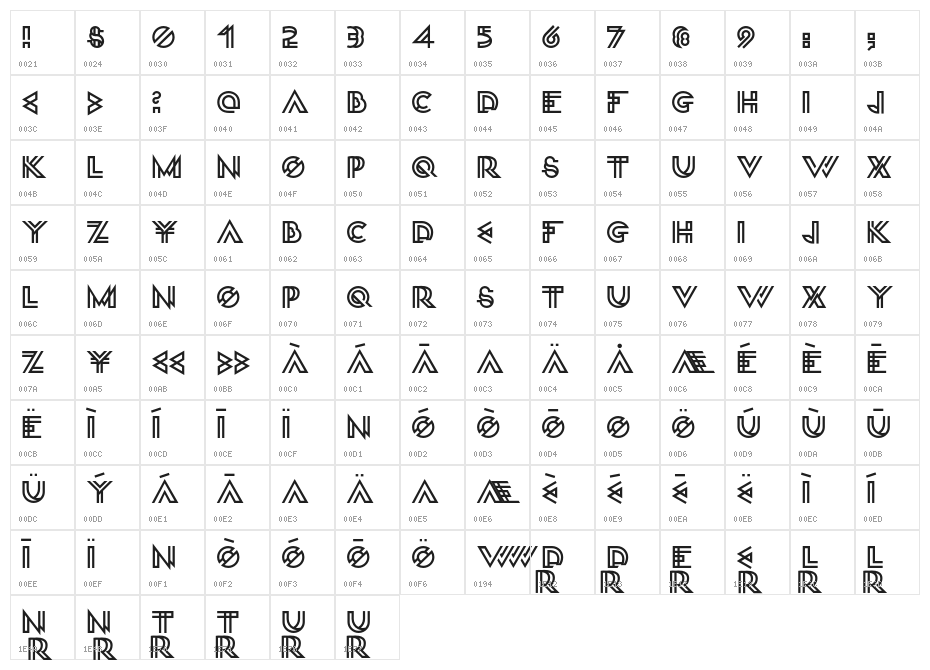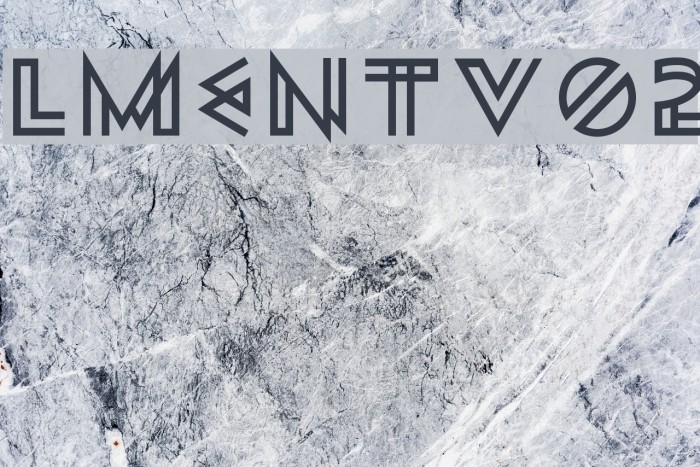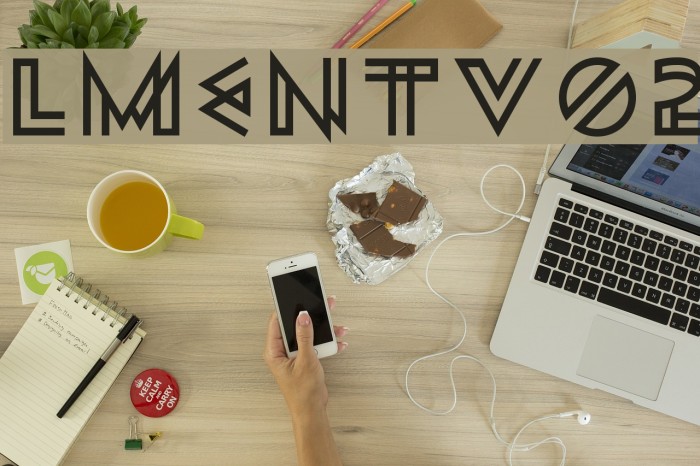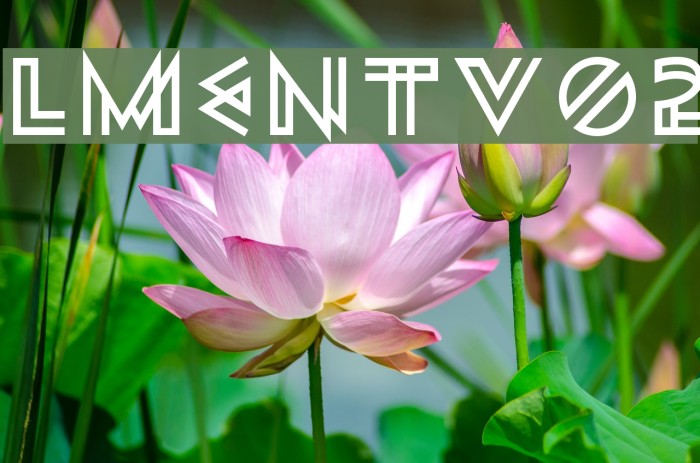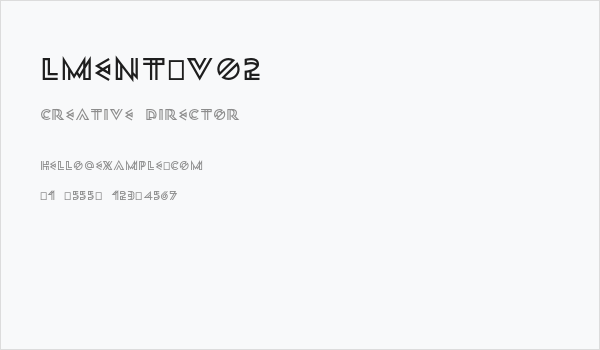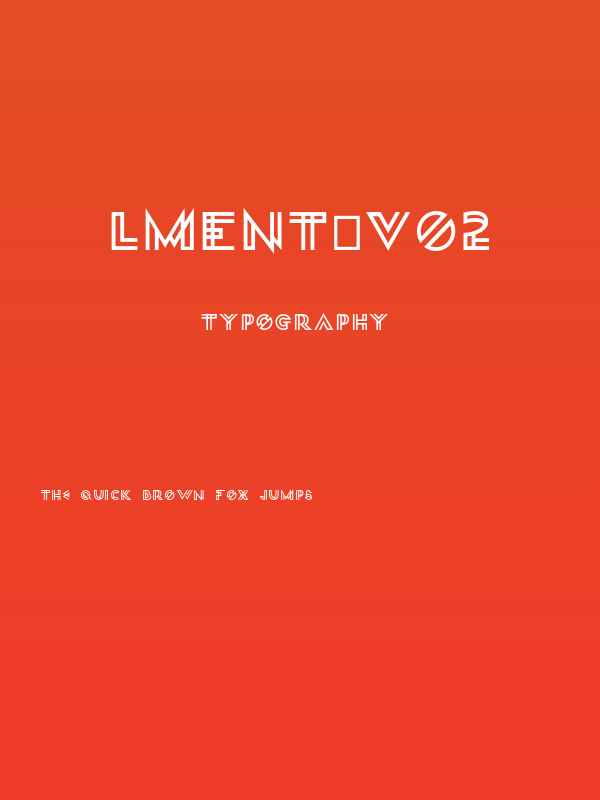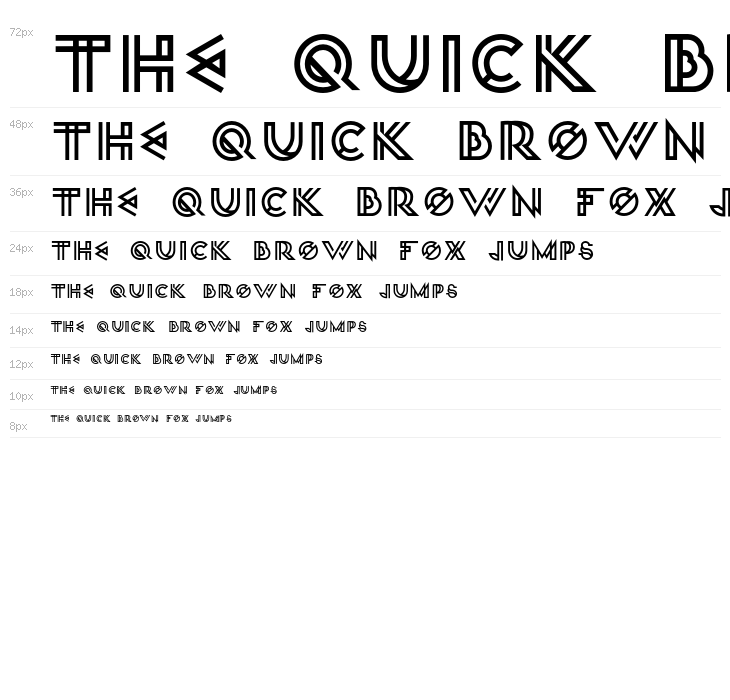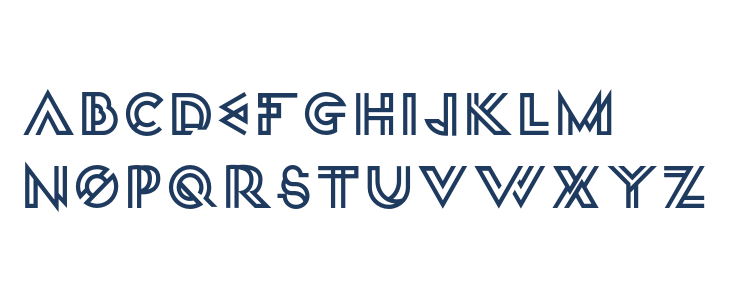
Lment-v02 Font
Lment-v02 Description
This font features a bold and geometric design, characterized by sharp angles and a modern aesthetic. The uppercase letters are distinct with unique cutouts and lines that create a sense of movement and dynamism. The lowercase letters maintain the same geometric style, ensuring consistency throughout. Numbers are equally bold, with a futuristic feel that complements the overall design. Special characters are designed to match the boldness and geometric nature of the alphabet, making this font suitable for eye-catching displays.